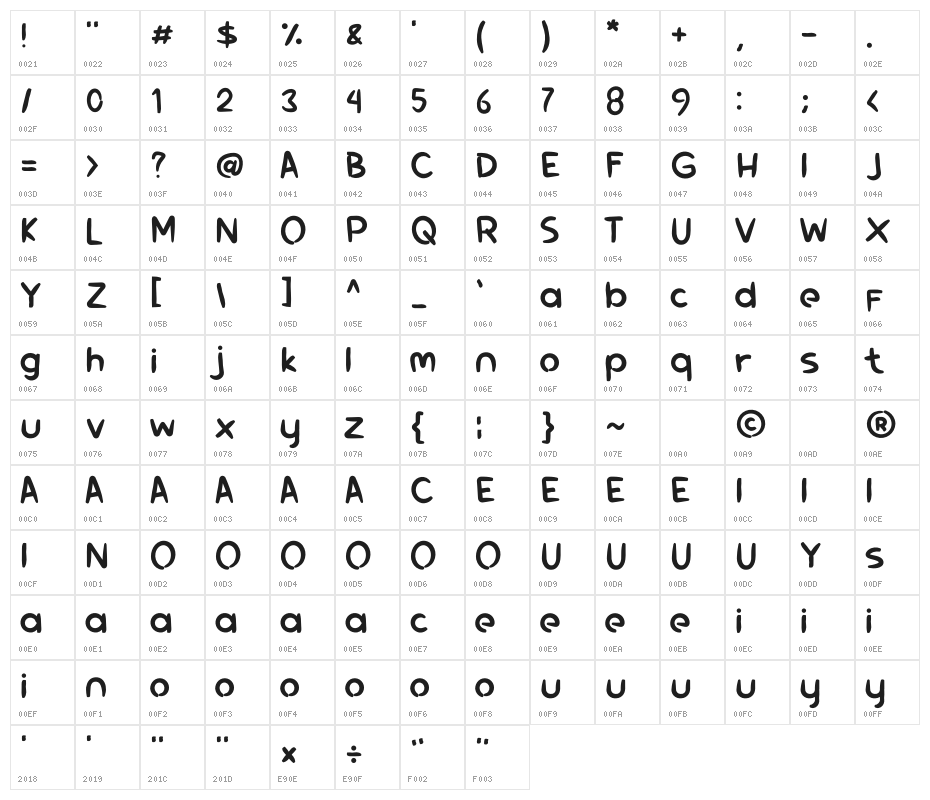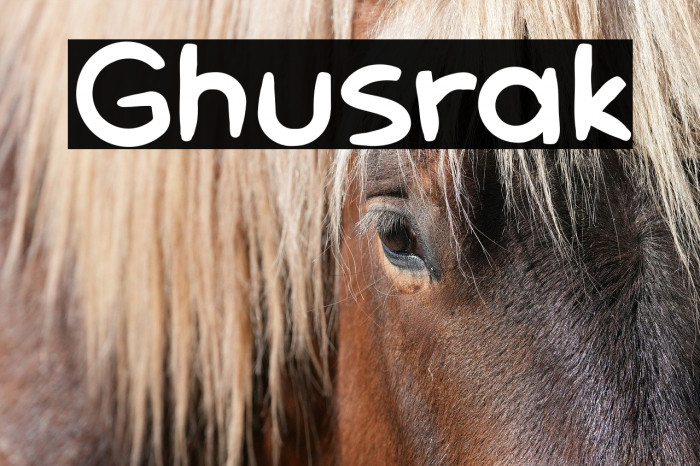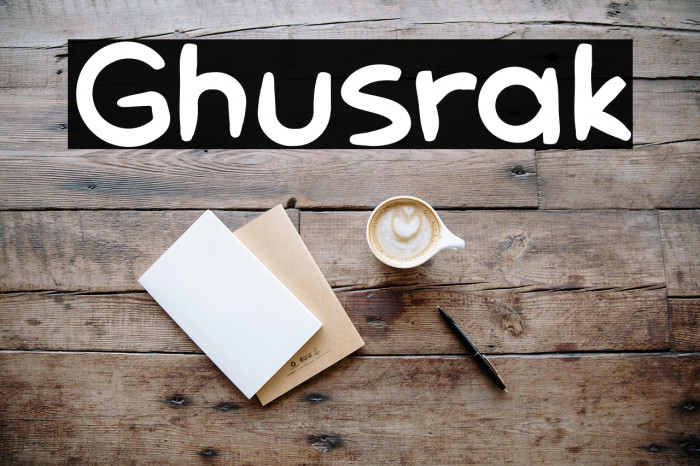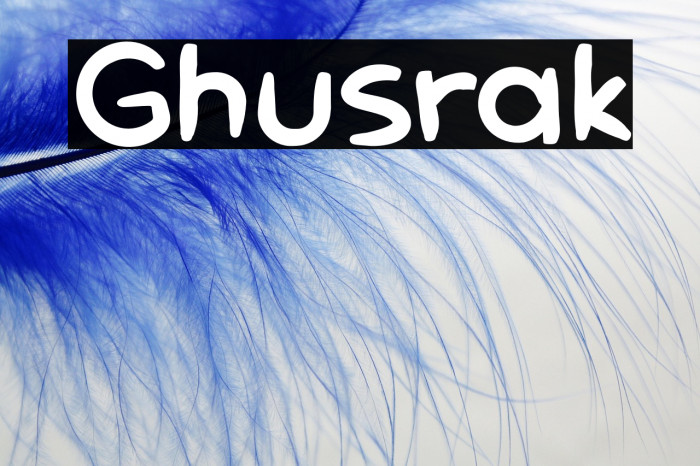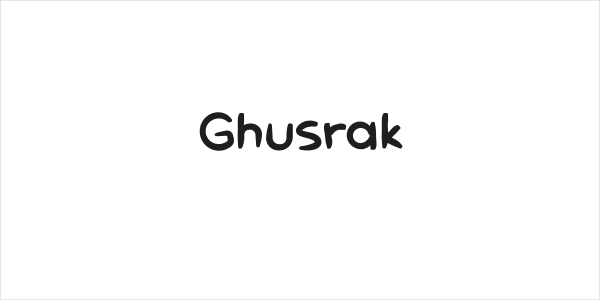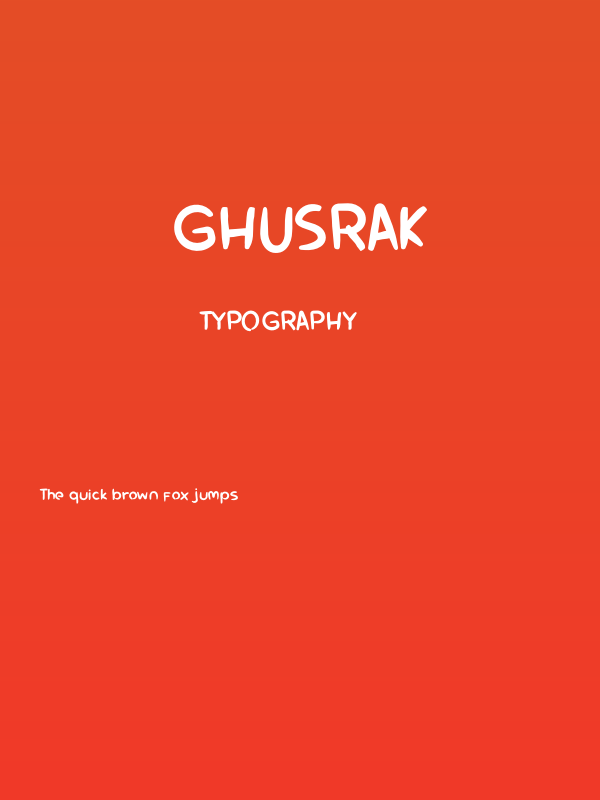
Ghusrak Font
Ghusrak Description
This playful and rounded font features a handwritten style that exudes a casual and friendly vibe. The characters are bold and slightly irregular, giving them a whimsical and approachable appearance. The uppercase and lowercase letters maintain a consistent style, with smooth curves and a slightly uneven baseline that enhances the hand-drawn effect. Numbers and special characters are equally playful, fitting seamlessly with the overall aesthetic. This font is perfect for projects that require a personal touch, such as children's books, greeting cards, or informal branding.